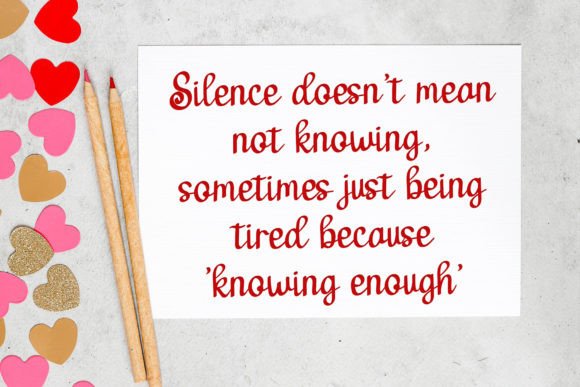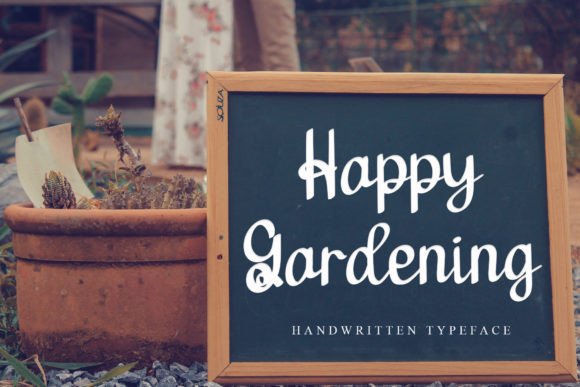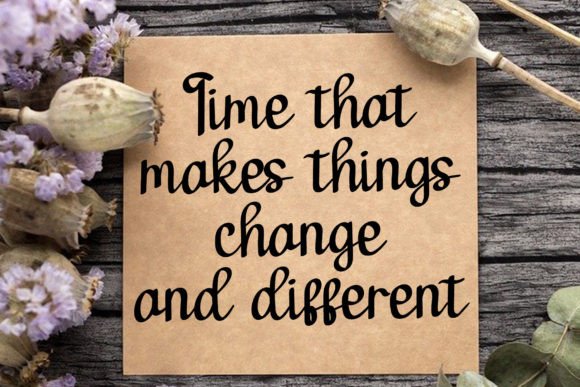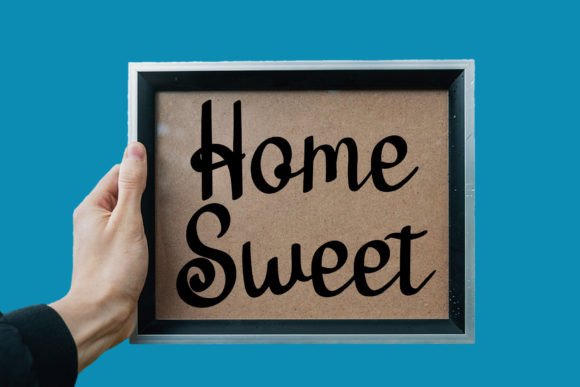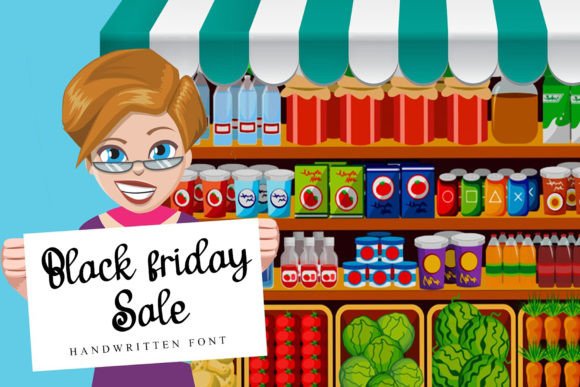
Introducing Dislike Font: Elevate Your Designs with Elegant Handwritten Charm
In the world of typography, a good font can make all the difference in elevating your designs from ordinary to extraordinary. For designers and crafters seeking a unique and elegant touch, Dislike Font is an exceptional choice. This singularly elegant typeface effortlessly brings a distinctive handwritten charm to your creations, perfect for a wide range of applications.
A Versatile Font for Various Design Needs
Dislike Font is remarkably versatile, resonating perfectly with various design projects. Whether you’re working on enchanting wedding invitations, heartfelt greeting cards, eye-catching billboards, or professional logos, this font is sure to impress. Its unique nature adds a touch of sophistication and intimacy, making it an ideal choice for business cards, where a personal feel is essential.
The Unique Characteristics of Dislike Font
One of the standout features of Dislike Font is its inherent fluctuation in baseline, influenced by the artist’s hand. This characteristic crafts a natural and visually captivating rhythm, giving your designs a sense of authenticity and tangibility. The font’s handwritten charm is perfect for designs that require a personal touch, setting it apart from more traditional typefaces.
Accessibility and Features
Applications of Dislike Font
The applications of Dislike Font are endless, and its versatility makes it an excellent addition to any designer’s toolkit. Here are a few examples of how you can use Dislike Font to elevate your designs:
- Wedding Invitations: Add a touch of romance and elegance to your wedding invitations with Dislike Font. Its handwritten charm and unique characteristics make it perfect for creating enchanting and memorable invitations.
- Greeting Cards: Create heartfelt and personalized greeting cards with Dislike Font. Its intimate touch and natural rhythm make it ideal for expressing your feelings and emotions.
- Logos and Branding: Use Dislike Font to create professional and eye-catching logos that reflect your brand’s personality. Its unique characteristics and elegant charm make it perfect for businesses seeking to establish a distinctive brand identity.
- Business Cards: Elevate your business cards with Dislike Font’s sophisticated and intimate touch. Its handwritten charm and natural rhythm make it perfect for creating memorable and impactful business cards.
Tips for Using Dislike Font Effectively
To get the most out of Dislike Font, here are a few tips to keep in mind:
- Experiment with Swashes: Take advantage of Dislike Font’s lavish swashes to add a touch of elegance and sophistication to your designs.
- Play with Sizes: Experiment with different font sizes to create visual interest and hierarchy in your designs.
- Combine with Other Fonts: Pair Dislike Font with other fonts to create a unique and visually appealing typography combination.
Dislike Font is an exceptional typeface that brings a distinctive handwritten charm to your designs. Its unique characteristics, versatility, and accessibility make it an excellent choice for designers and crafters seeking to elevate their work. Whether you’re working on wedding invitations, logos, business cards, or greeting cards, Dislike Font is sure to impress. With its elegant charm and natural rhythm, this font is sure to become a staple in your design toolkit.